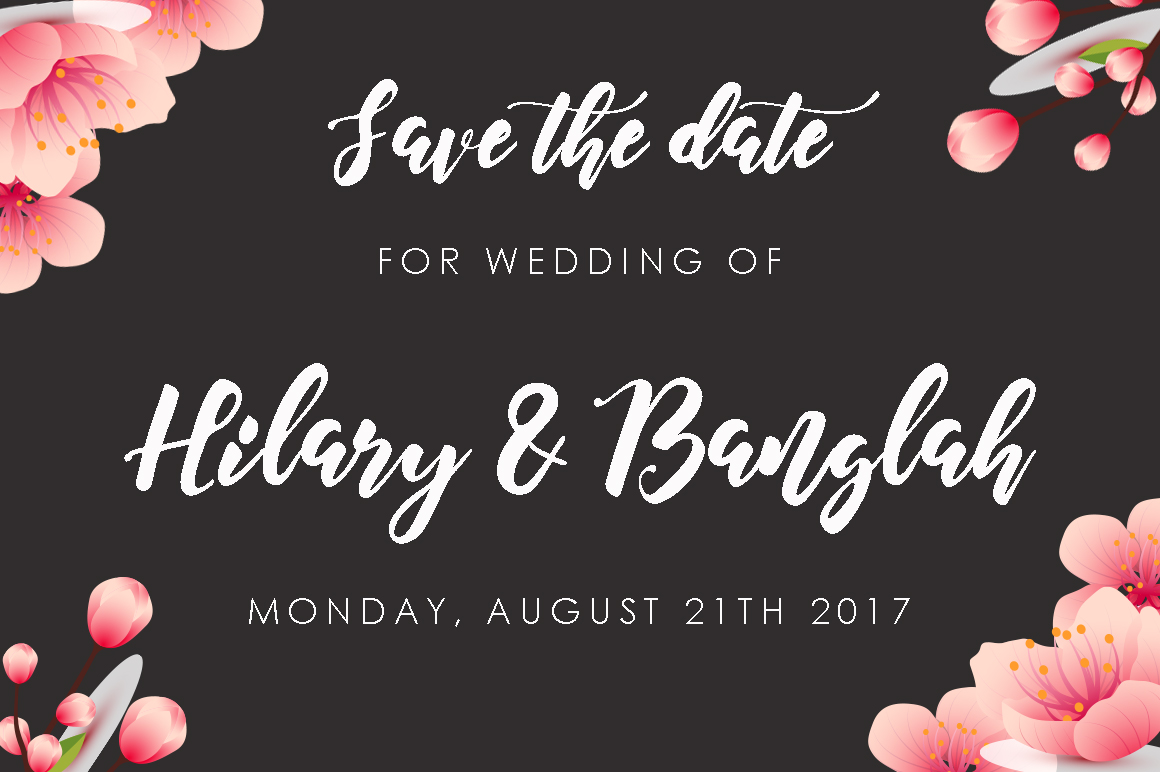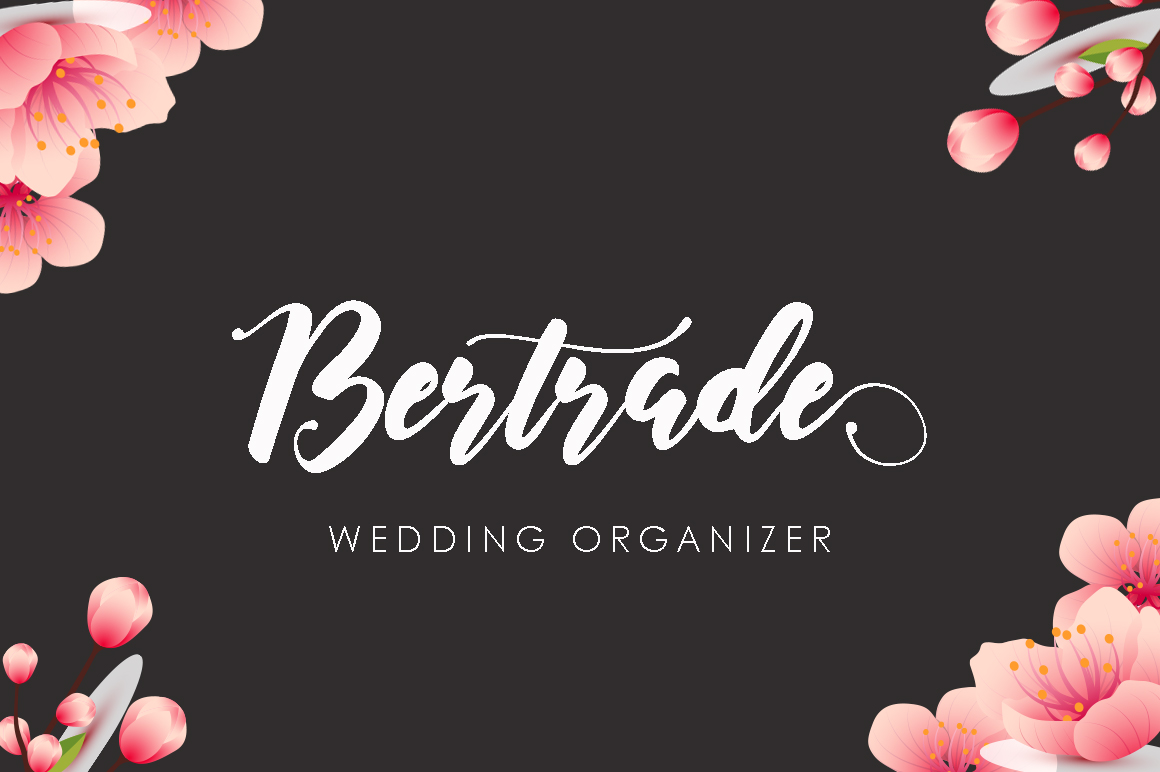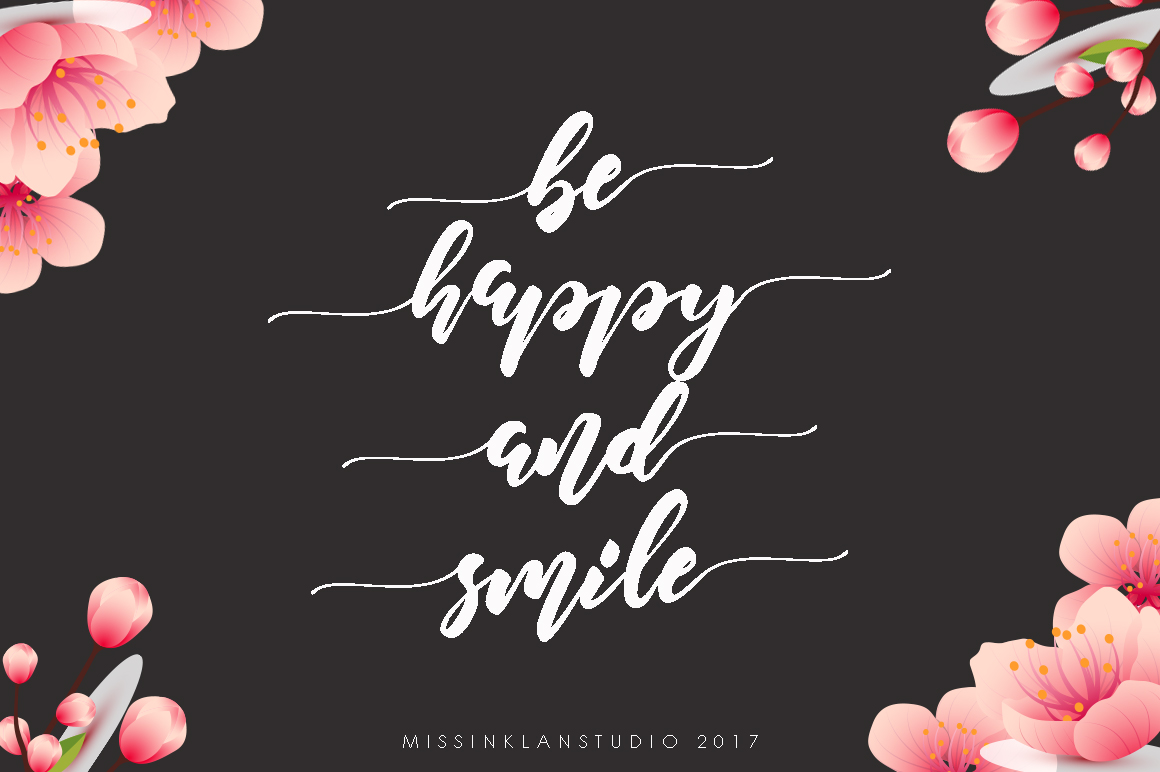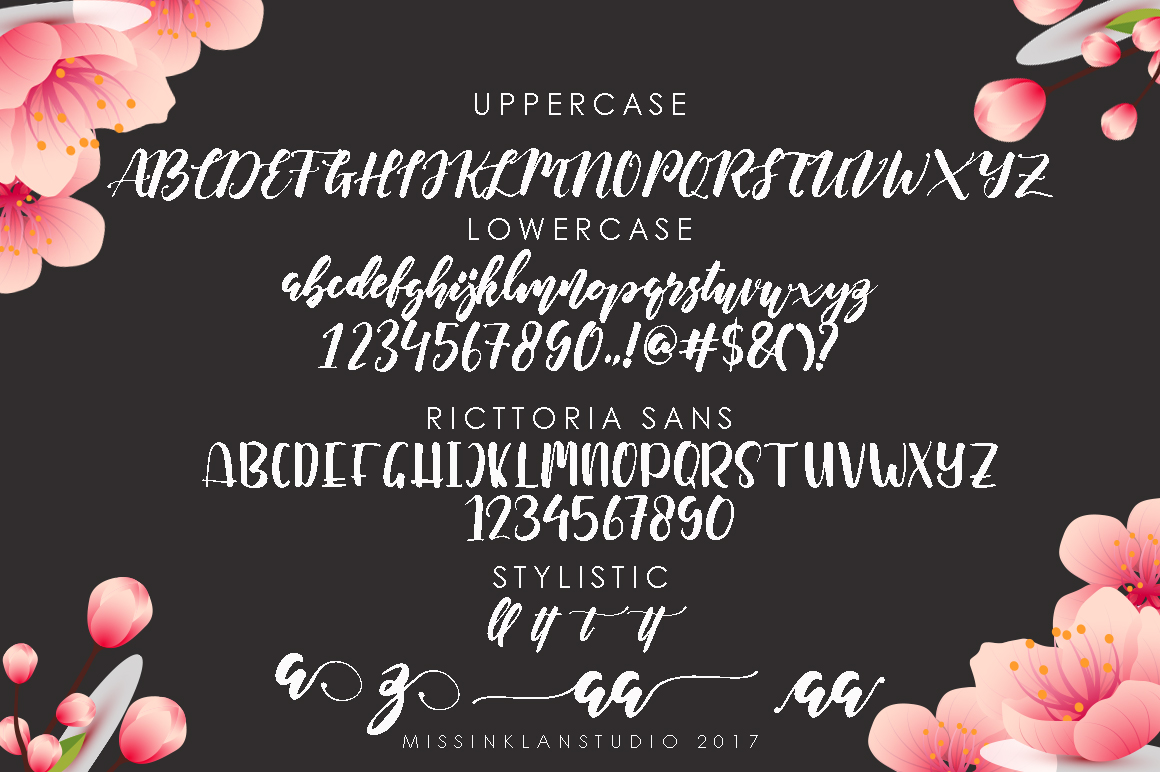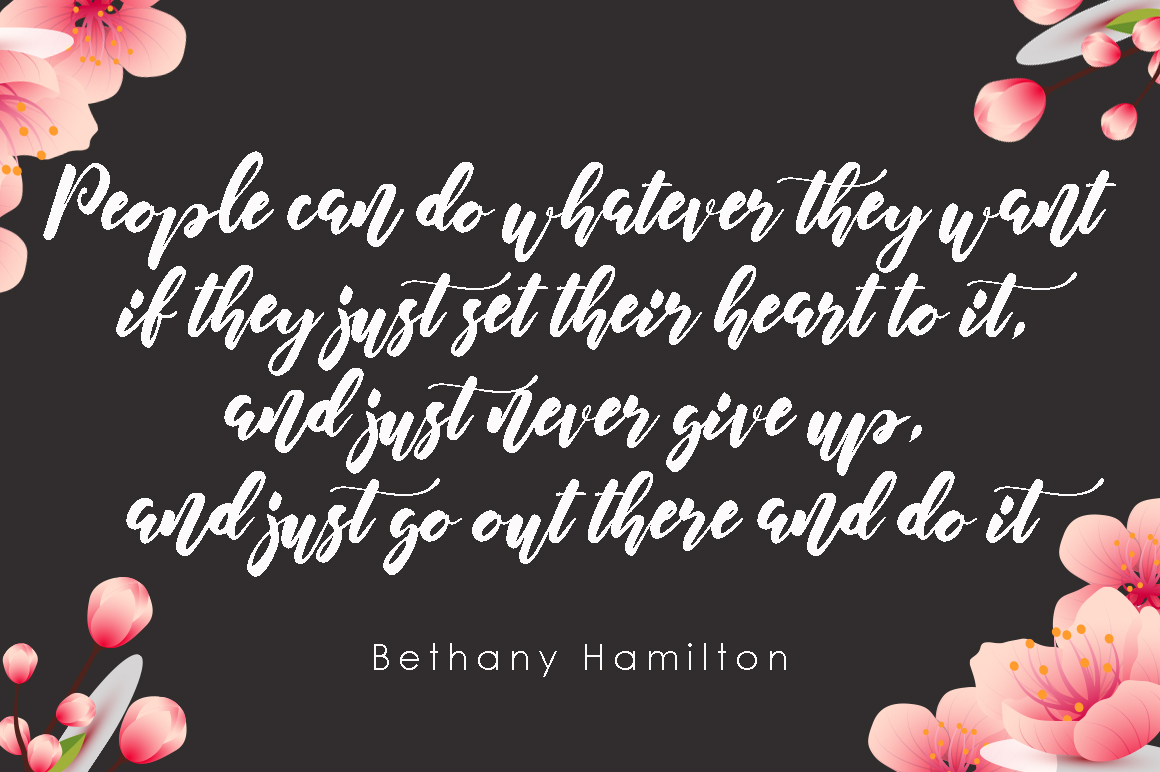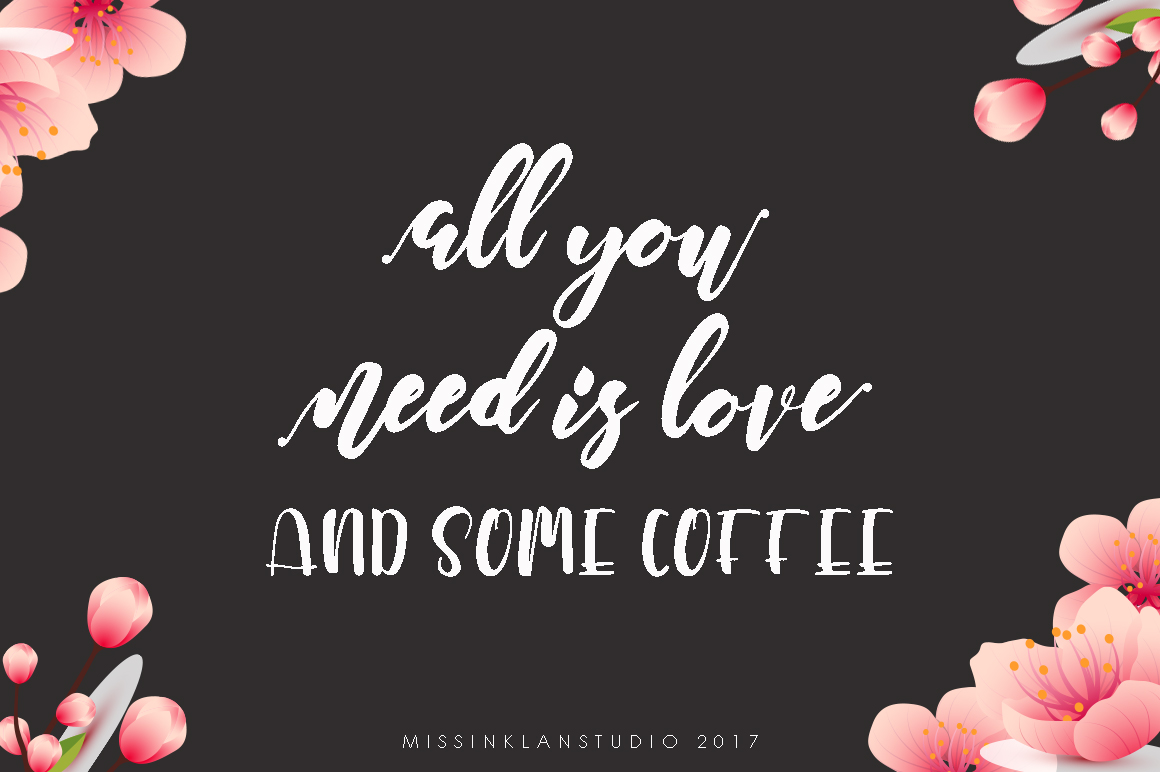
Introduction to Ricttoria Font
Ricttoria is a modern handcrafted font.
It’s perfect for many different types of projects and comes with 2 different fonts .